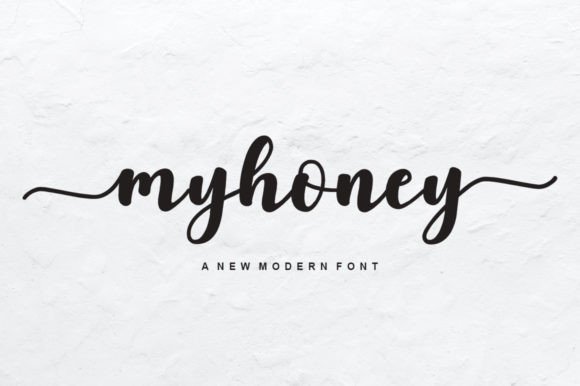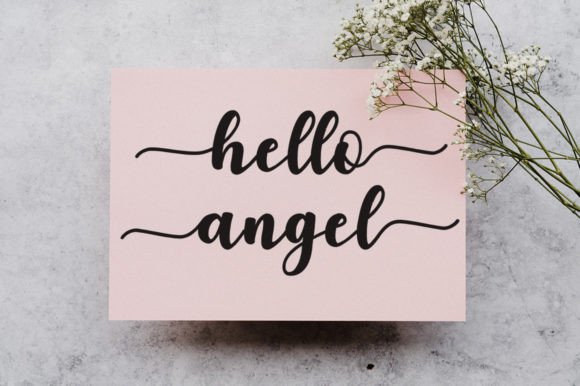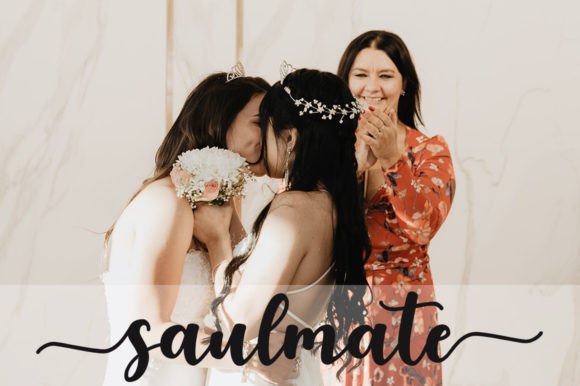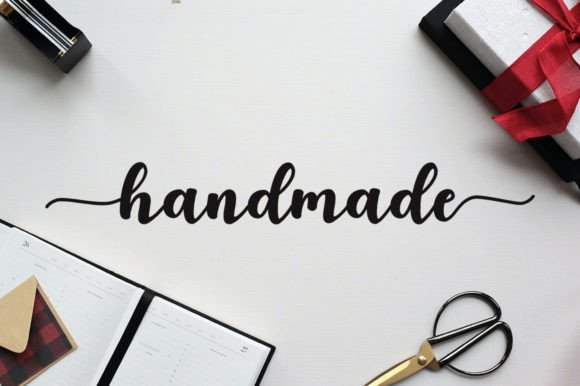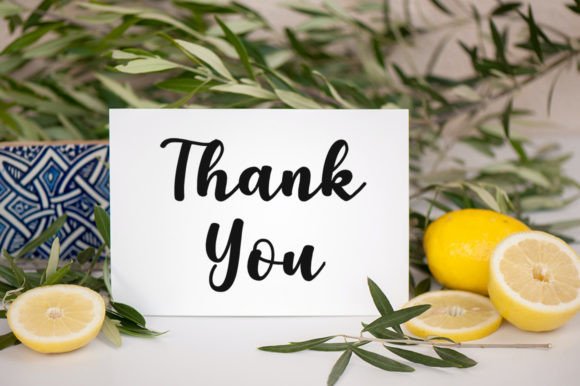
About My Honey Font Download
The My Honey Font Download is a lovely and sweet handwritten script designed to bring romance and charm to your projects. With its flowing strokes and joyful curves, this font adds a personal and heartfelt touch to everything from invitations to digital content. Whether you are creating posters, branding, or greeting cards, My Honey helps your designs feel warm and unique.
A Lovely Handwritten Script with Romantic Style
The My Honey script font blends gentle handwritten lines with a modern look. As a result, it feels joyful, stylish, and approachable. Furthermore, it adapts well to both small and large-scale projects, making it a flexible option for many uses.
Handwritten fonts always add personality to stationery. The My Honey Font is excellent for wedding invitations, birthday cards, thank you notes, and holiday greetings. Because of its romantic flow, every message feels polished and special. In addition, it makes cards look unique and memorable.
Branding and Logo Design with My Honey Font
Typography builds strong brand identity. The My Honey handwritten font is perfect for boutique logos, packaging, and promotional materials. Its sweet and creative strokes make businesses appear friendly yet elegant. Therefore, it works well for brands that want to connect with emotion and style.
Posters, Titles, and Creative Displays
The My Honey Font Download is also ideal for posters, magazine layouts, banners, and book covers. It keeps its clarity across sizes and brings a refined charm to every design. Consequently, it is a good choice for designers seeking beauty and readability in one script.
In today’s fast-moving digital space, fonts must be eye-catching while staying practical. The My Honey typeface integrates smoothly into Instagram graphics, Pinterest posts, YouTube thumbnails, and blogs. Because of its sweet handwritten rhythm, online designs look stylish and engaging.
Why Designers Choose My Honey Typeface
Designers value fonts that combine ease of use with charm. While some handwritten styles look artistic but lose clarity, the My Honey handwritten script remains readable and versatile. This balance makes it dependable for both personal and professional work.
Add Romantic Warmth to Your Projects Today